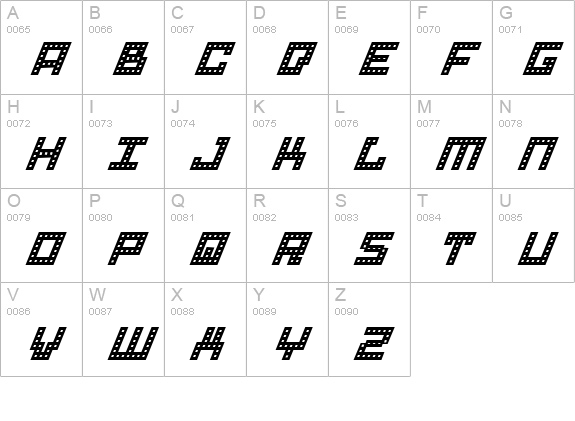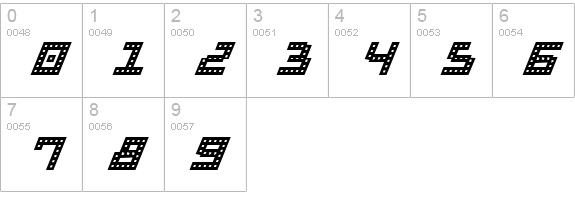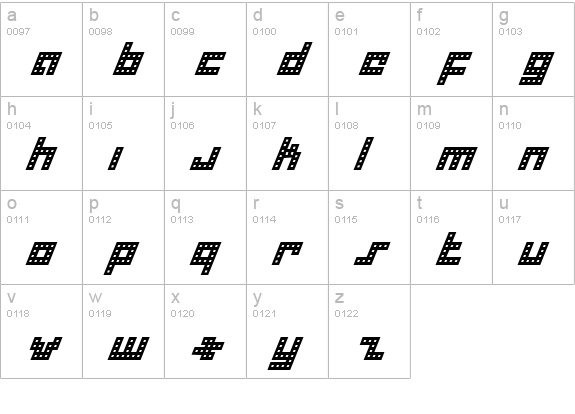
Drid Herder Italic Font Details
Drid Herder Italic is a distinctive, italic variant in the Drid typeface family \xE2\x80\x94 well suited to design and typography projects.
Drid Herder Italic font is a stylish and modern typeface that exudes sophistication and elegance. With its sleek and unique design, this font is perfect for adding a touch of flair to your projects. The italicized style adds a dynamic and contemporary feel to any text, making it stand out from the crowd. Best of all, Drid Herder Italic font is completely free to download at FontsMarket.com. This means you can easily access this high-quality font without any cost, making it a fantastic choice for designers, creatives, and anyone looking to elevate their work with a touch of creativity. Don't miss out on this amazing opportunity to enhance your projects with the stunning Drid Herder Italic font – download it for free today!